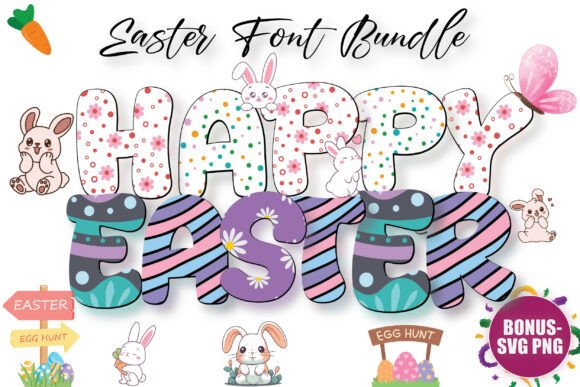
Hop into Creativity with the Fancy Easter Bundle Font
As a designer, I’ve had my fair share of late nights scrolling through font libraries, searching for that perfect Easter-themed font to bring a client’s project to life. I recall one particularly stressful evening, desperately trying to find a font that would match the playful and festive vibe of an Easter egg hunt invitation. That’s when I stumbled upon the Fancy Easter Bundle Font, a game-changing collection that has since become a staple in my design toolkit.
What’s Included in the Fancy Easter Bundle Font?
The Fancy Easter Bundle Font is a delightful collection of five unique Easter-themed fonts, each offering a distinct personality to suit various design needs. The bundle includes:
- Fancy Dot Easter Font – A cute, dotted decorative alphabet perfect for creating whimsical designs.
- Fancy Easter Font – A fun and playful festive alphabet ideal for Easter invitations and party decor.
- Fancy Flower Easter Font – A floral-inspired spring lettering font that adds a touch of elegance to any design.
- Simple Easter Font – A clean and classic Easter font suitable for a wide range of applications, from banners to planners.
- Rainbow Easter Font – A colorful gradient alphabet that’s perfect for creating vibrant and eye-catching designs.
- ✨ Variety of Styles: The bundle offers five unique fonts, providing endless creative possibilities for Easter-themed projects.
- 🎨 High-Quality Design: Each font is meticulously crafted, offering clean lines, and beautiful details.
- ⚠️ Learning Curve for Advanced Features: While the fonts are easy to use, mastering advanced features like OpenType and glyphs might require some time and practice.
- Explore the various stylistic alternates and glyphs to add a personal touch to your Easter designs.
The Designer Inspiration Behind the Fancy Easter Bundle Font
The Fancy Easter Bundle Font was created with the intention of providing designers and crafters with a versatile and fun collection of Easter-themed fonts. The designer, inspired by the joy and playfulness of Easter, aimed to craft fonts that would bring a touch of whimsy and festivity to any design project. With a focus on quality and usability, the Fancy Easter Bundle Font has become a go-to resource for creatives looking to add a personal touch to their Easter designs.